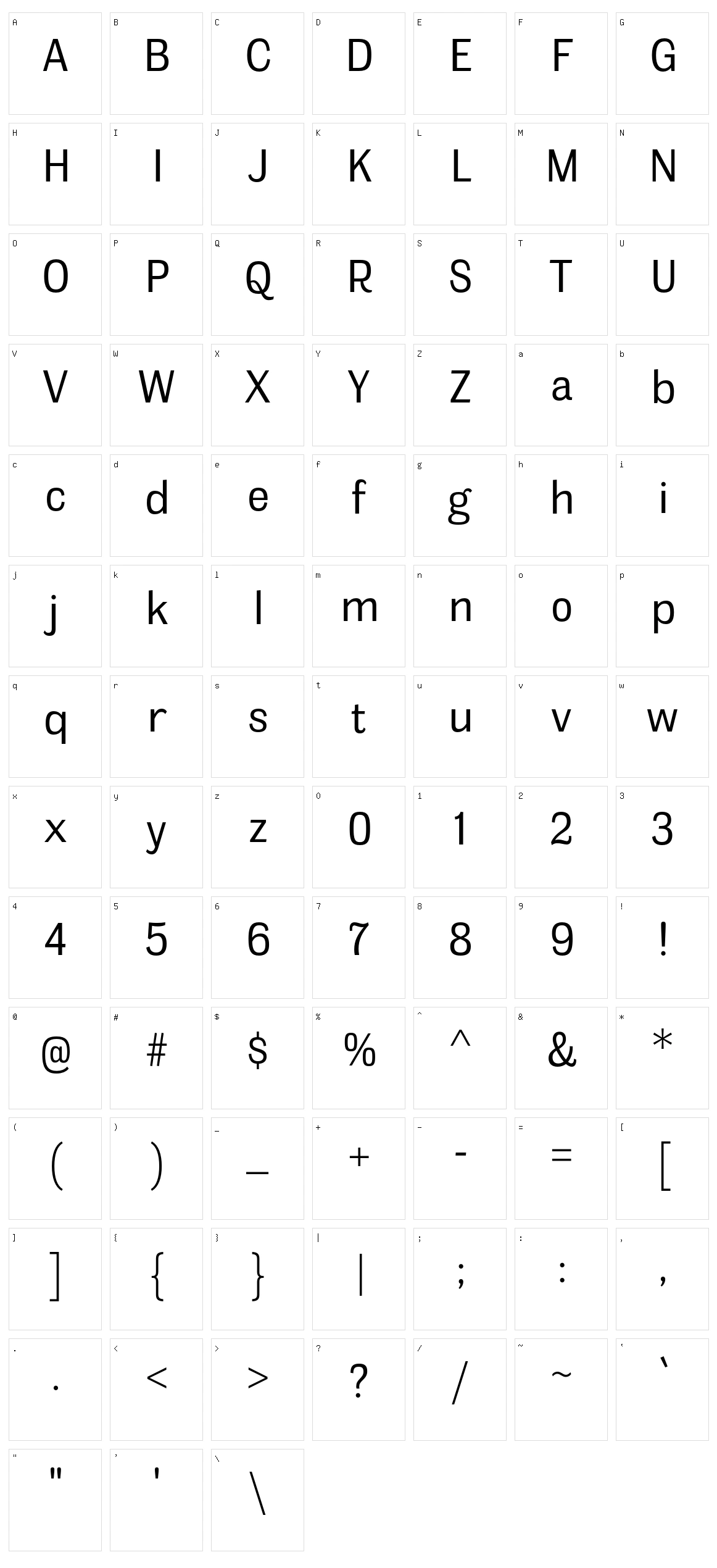
The free font Meloche is carefully designed by Typodermic Fonts, showcasing a thoughtful balance of creativity and usability and falls under the Sans serif font style. When you download the ZIP file, it contains only 213.65 KB of font files, making it lightweight and quick to download. Please review the license details below to understand permitted usage and distribution rights. If license information is not available, we recommend using this font for personal projects only or contacting the author directly for commercial usage permissions.